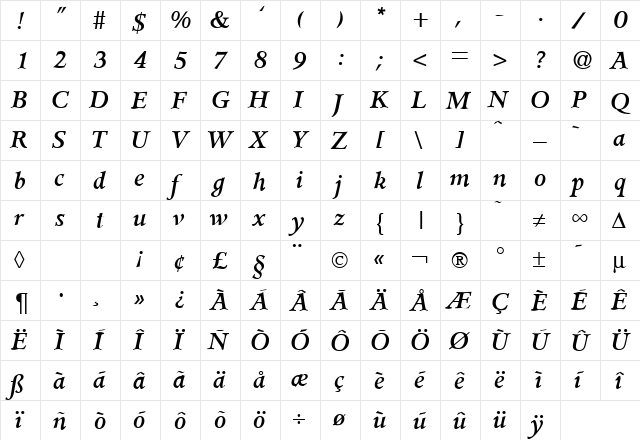
Jessamine RegularItalic
Design Context for Jessamine Typeface
Jessamine offers clean, dependable letterforms without strong stylistic allegiance, making it a practical choice for designers who need flexibility. Its italic angle brings a sense of urgency and motion to the letterforms.
Pro Tip: Use Jessamine for emphasis, pull quotes, and subheadings where its slanted energy can add rhythm to the layout.